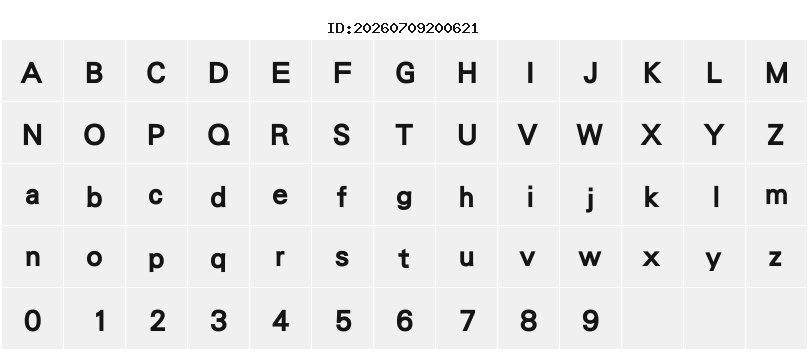
DFPFengYe-B5 Preview
About DFPFengYe-B5.ttf
DFPFengYe-B5.ttf is a modern, elegant sans-serif font designed for ultimate readability and visual harmony. Perfect for branding, headlines, web design, and print materials.